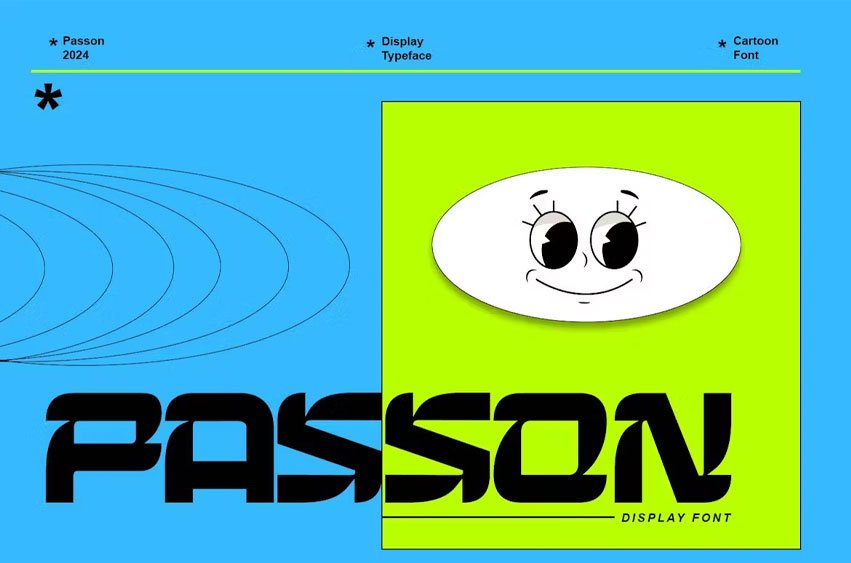
Passon Font Decorative Typeface. Passon Typeface was created with the vision of attracting the audience to your brand. The finest details of this typeface are methodically and mathematically created. Passon is created with all the tasks of a corporate font and is also for the usage in a variety of projects, including branding, logos, titles, headlines, servers, posters, cartoons, displays, and everything else.